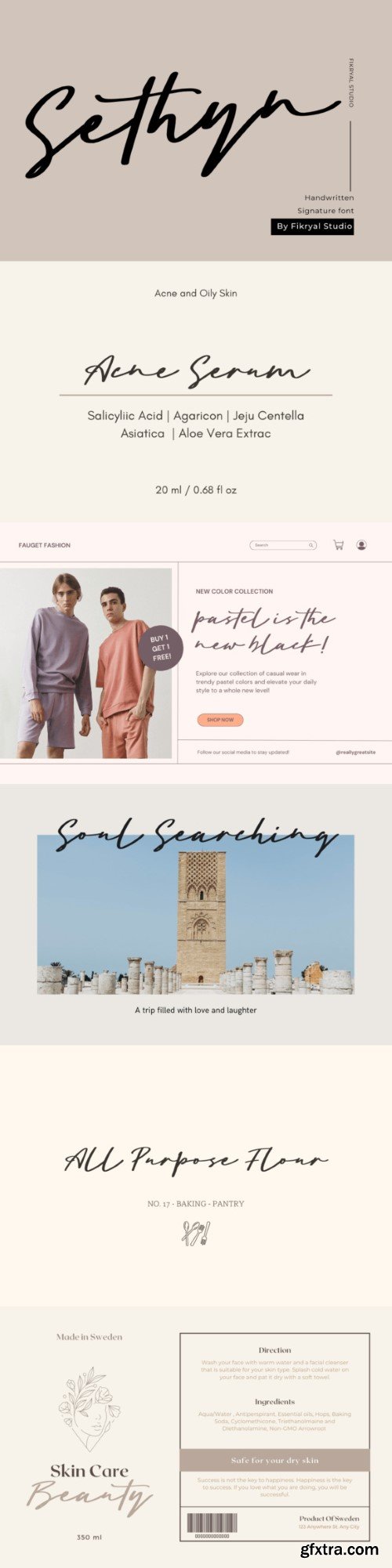
塞森字体
Sethyn is a stylish and casual handwritten font that brings effortless elegance to your projects. Its flowing strokes and balanced curves create a sense of harmony and sophistication. Perfect for branding, invitations, and social media graphics, Sethyn adds a touch of charm and modernity. With its versatility and smooth aesthetics, this font complements various design styles beautifully.